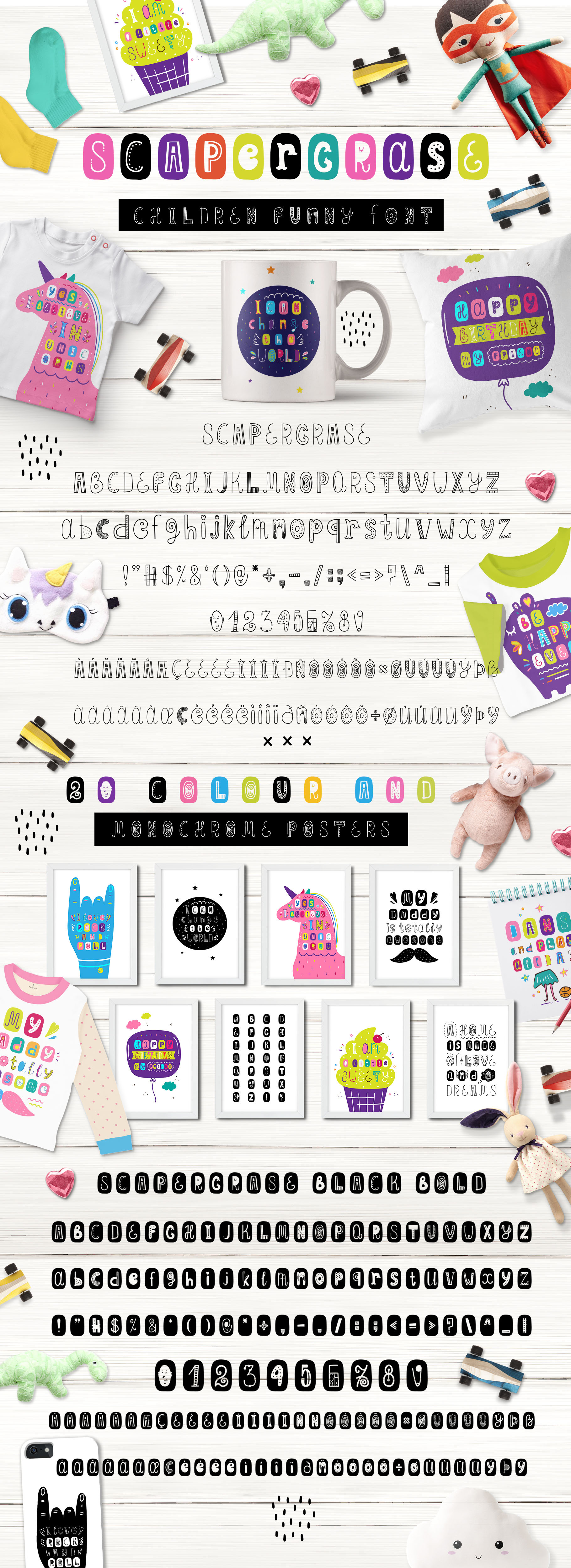
Scapegrace - Children Funny Font
Hi! I hasten to acquaint You with an amazing children's font - Scapegrace - Children Funny Font! This cute font made by hand and with great love! With the help of font, you can make cards, prints on clothes, bright posters, calendars, brochures, decorate the children's room, create invitations, icons, mugs and more! Just take it and create a variety of design options! You can use this font to decorate books, magazines, blogs!